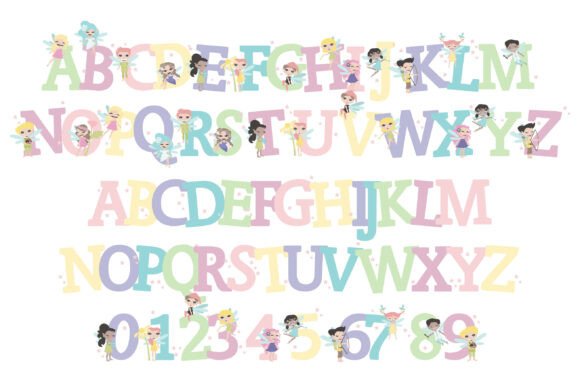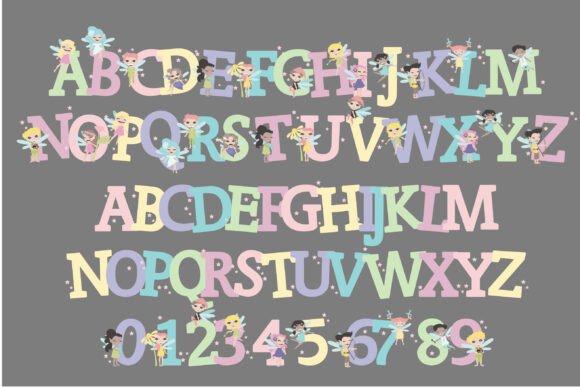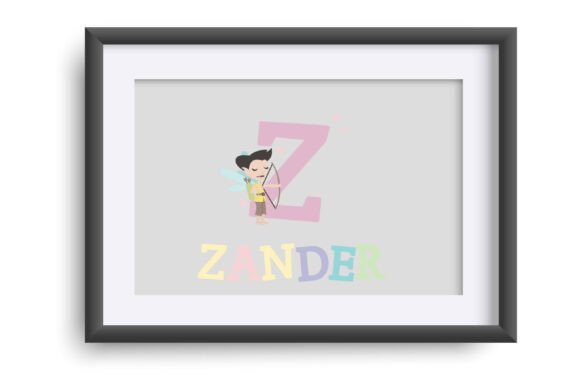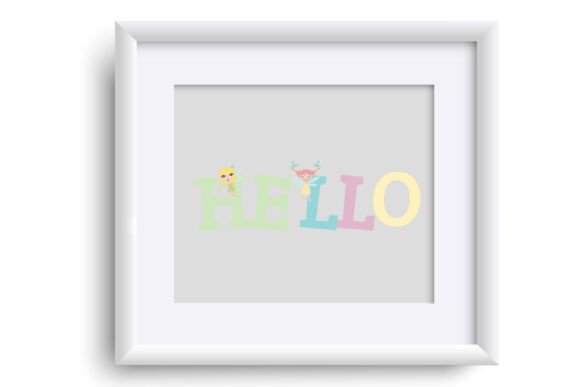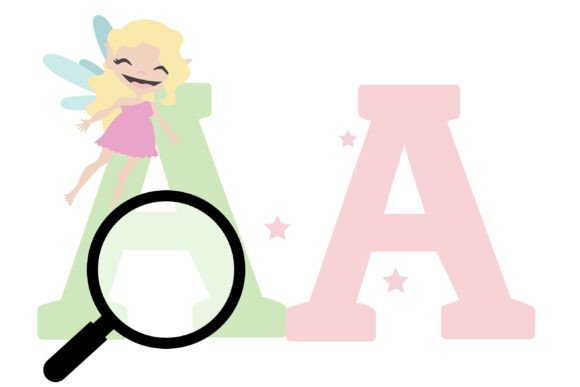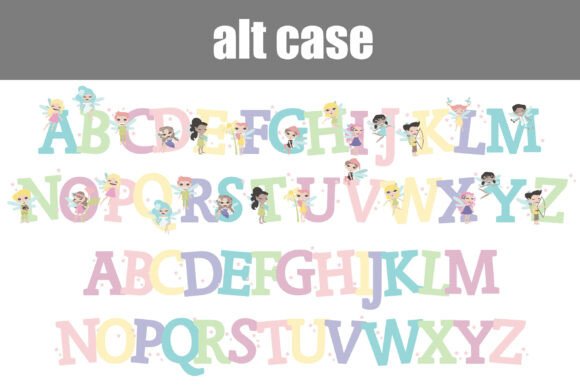
Introduction to Pixie Babe Font
Do you remember the moment when you stumbled upon a design element that sparked pure creativity and made your heart skip a beat? For many designers, it’s a feeling that’s hard to replicate, but one look at the Pixie Babe Font can transport you straight to that magical realm.
As a valuable addition to any designer’s toolkit, the Pixie Babe Font is a free download that offers a high-quality, transparent background design resource perfect for creative projects. This enchanting font collection features soft, rounded block letters adorned with hand-illustrated pixies, glittering stardust, and tiny magic wings, creating a whimsical atmosphere that’s simply irresistible.
With its storybook-fairytale soul and gentle rhythm, the Pixie Babe Font is an absolute must-have for designers seeking to infuse their designs with a touch of magic. Whether you’re working on children’s fantasy book titles, boutique nursery branding, or personalized birthday stationery, this delightful font is sure to captivate your audience and leave a lasting impression.
Key Features of Pixie Babe Font
- This unique font boasts a distinctive, whimsical design that is perfect for adding a touch of magic to creative projects.
- Pixie Babe Font is a versatile design resource that can be used for a wide range of creative projects, from logos and branding to editorial and advertising designs.
Honest Review: Pixie Babe Font
I recently stumbled upon the Pixie Babe Font and I must say it’s a delightful addition to my design resources. This free download has been a game-changer for my creative projects, adding a touch of whimsy and charm to my designs.
What works well: ✨ The Pixie Babe Font’s high-quality design makes it perfect for use on a transparent background, allowing the text to seamlessly blend into any design. The font’s playful and feminine style is ideal for projects that require a touch of magic.
What doesn’t: ⚠️ The font only includes uppercase letters, which can be limiting for projects that require both uppercase and lowercase text. Additionally, the font may not be suitable for projects that require a more serious or formal tone.
Overall, I’m thoroughly impressed with the Pixie Babe Font. It’s a versatile and high-quality design resource that’s perfect for adding a touch of personality to your creative projects. If you’re looking for a free download that’s full of charm and whimsy, I highly recommend giving the Pixie Babe Font a try.
- Perfect for creative projects that require a touch of whimsy and charm
- Limited to uppercase letters only
- May not be suitable for formal or serious projects
Pixie Babe Font
The Pixie Babe Font is a high-quality, free design resource perfect for any creative project. With its unique and playful style, it’s ideal for adding a touch of whimsy to your designs.
To get the most out of the Pixie Babe Font, try using it with a transparent background to add depth and dimension to your designs. You can also experiment with different font sizes and styles to create a unique look.
The Pixie Babe Font is perfect for a variety of creative projects, including:
- Invitations and party decor
- Baby and children’s products
- Wedding stationery and decor